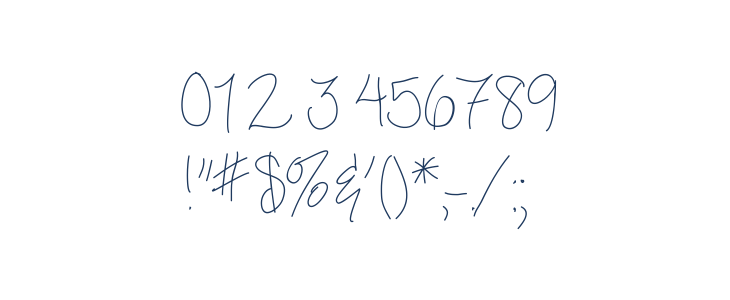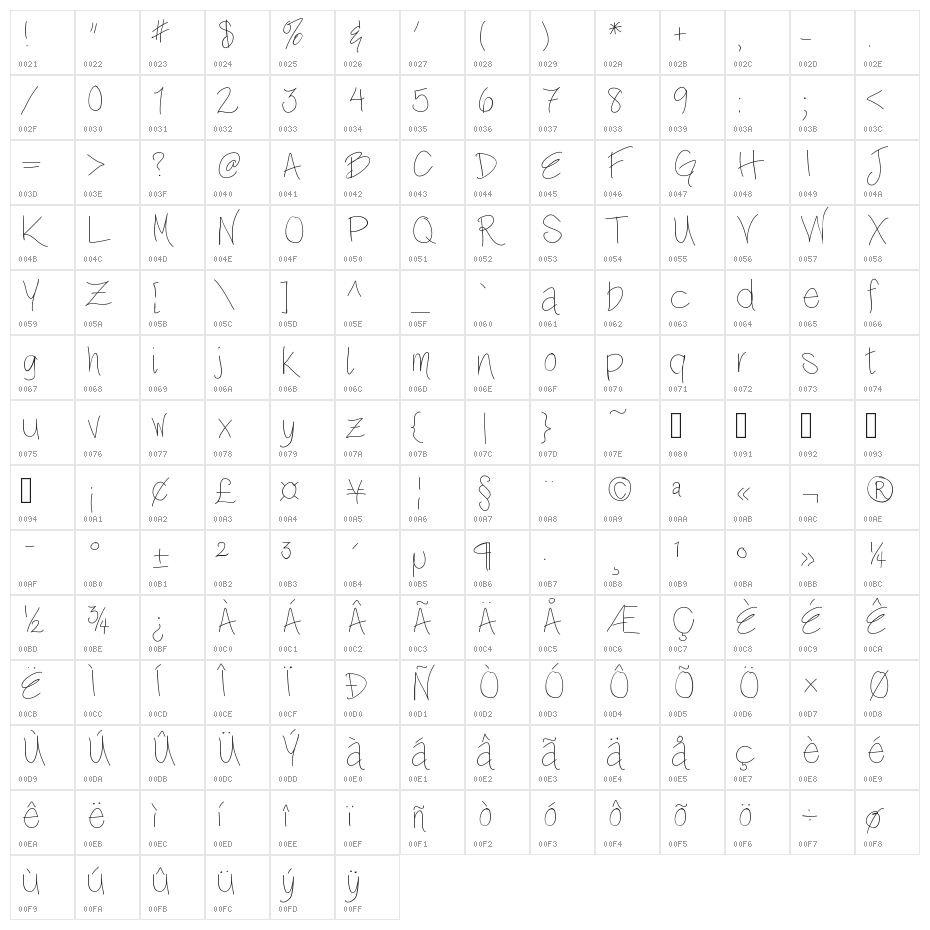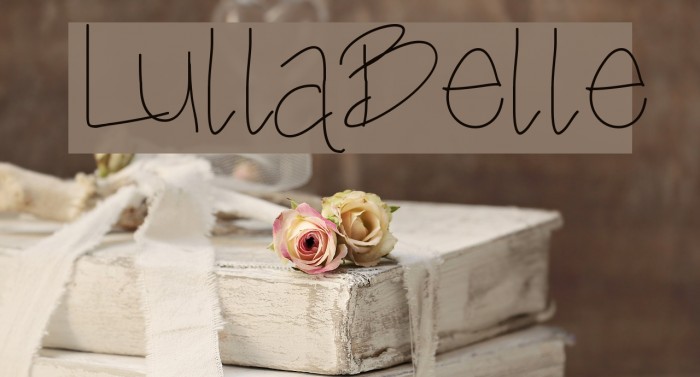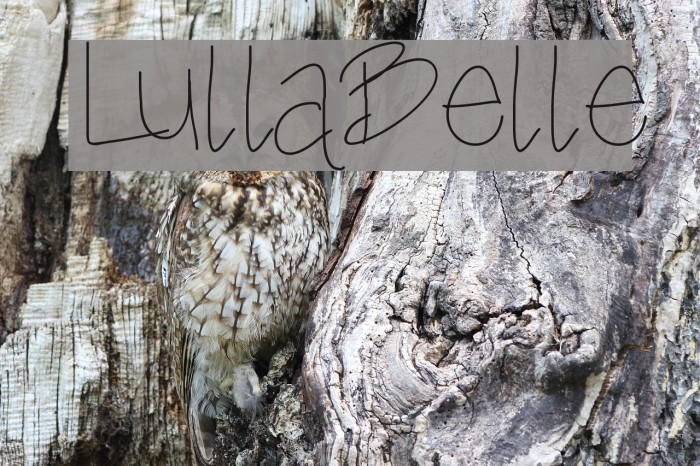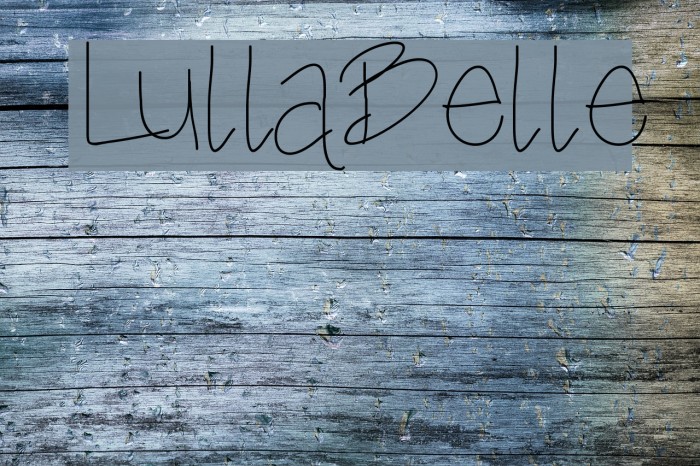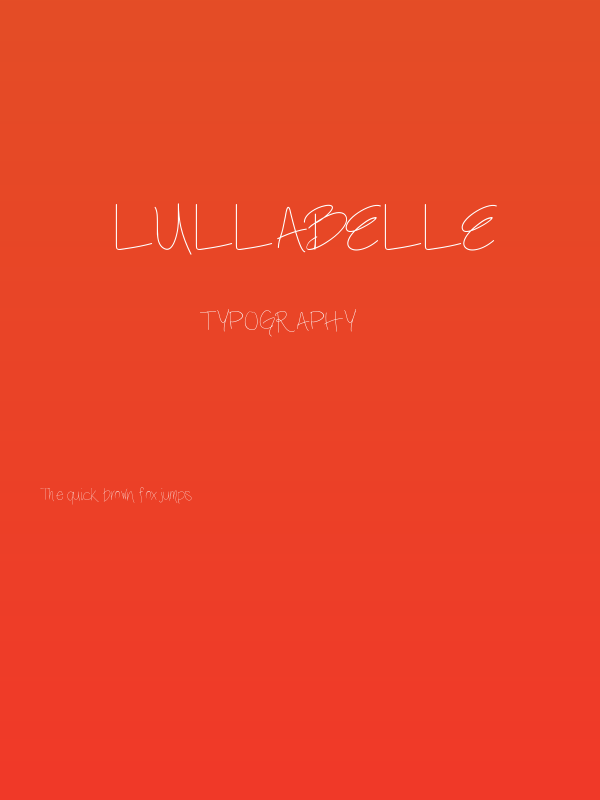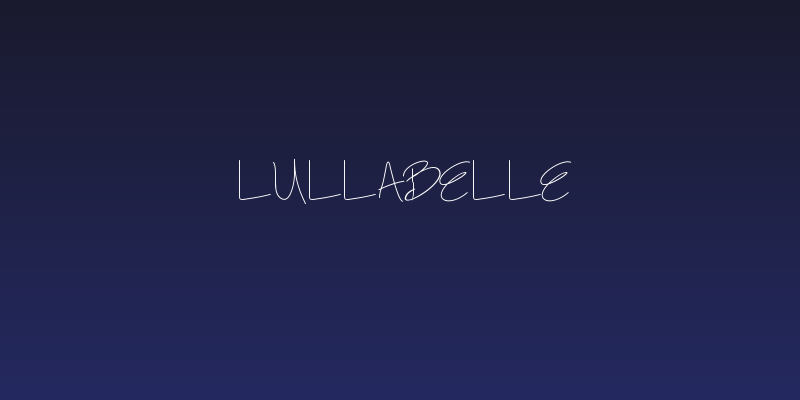
LullaBelle Font
LullaBelle Description
This font features a playful and whimsical handwritten style, characterized by its thin, flowing strokes and casual, informal appearance. The letters are slightly irregular, giving it a charming and personal touch. The uppercase and lowercase letters maintain a consistent style, with a slight slant that adds to its dynamic feel. The numerals and special characters are crafted with the same playful spirit, making them blend seamlessly with the alphabet. This font is perfect for projects that require a personal, friendly, and approachable look.
| Use Case | Headlines, Creative projects, Informal text |
| Proposed Projects | Ideal for greeting cards, invitations, children's books, and creative branding projects. |